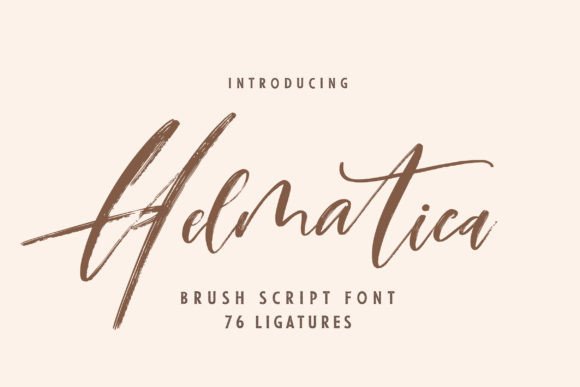
Introducing Helmatica Font: The Ultimate Choice for Exquisite Designs
Are you in search of the perfect font that will elevate your designs to new heights? Look no further than Helmatica Font, the ultimate script font that combines elegance, sophistication, and artistry. Created by the talented team at Bellinghamtype, this font is guaranteed to captivate your audience and leave a lasting impression.
With its delicate design, Helmatica Font boasts flowing, graceful lines that exude a sense of beauty and refinement. Each letter is crafted with intricate, artistic flourishes, adding a touch of timeless elegance to any project. Whether you're designing wedding invitations, creating upscale branding, or working on other refined designs, this font is the ideal choice to make your work stand out.
What sets Helmatica Font apart from the rest is its versatility. Its enchanting curves and graceful strokes make it perfect for a wide range of applications. This font is specifically optimized for flyers on Canva, ensuring that your designs will be visually stunning and attention-grabbing. It seamlessly blends with various design elements, allowing you to create eye-catching compositions effortlessly.
Unlock the full potential of Helmatica Font with its PUA encoding. This means that you'll have access to all glyphs and swashes, giving you unlimited creative freedom. With a vast array of decorative elements at your disposal, you can personalize your designs and add that extra touch of sophistication that will leave your audience in awe.
But Helmatica Font is more than just a font; it's an emotional experience. Its timeless elegance evokes a sense of nostalgia and beauty, capturing the essence of cherished memories and unforgettable moments. With every stroke, this font tells a story, allowing you to create designs that resonate deeply with your audience.